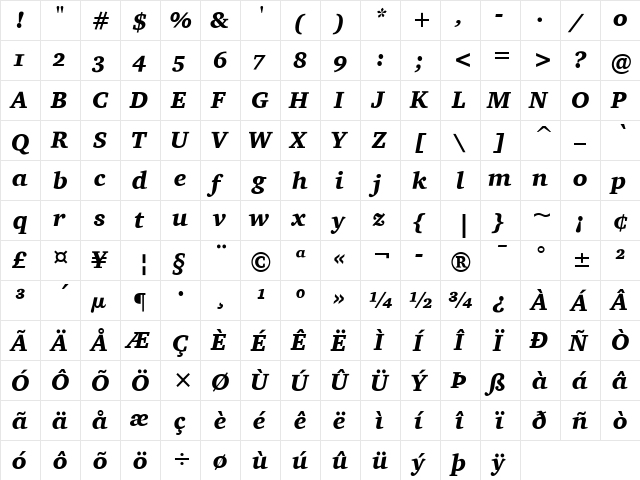
Charter ITC Black Italic Font Preview
Charter ITC Black Italic
Design Context for Charter ITC Typeface
Charter ITC offers clean, dependable letterforms without strong stylistic allegiance, making it a practical choice for designers who need flexibility. The slanted form adds forward momentum and visual energy.
Pro Tip: Use Charter ITC for emphasis, pull quotes, and subheadings where its slanted energy can add rhythm to the layout.